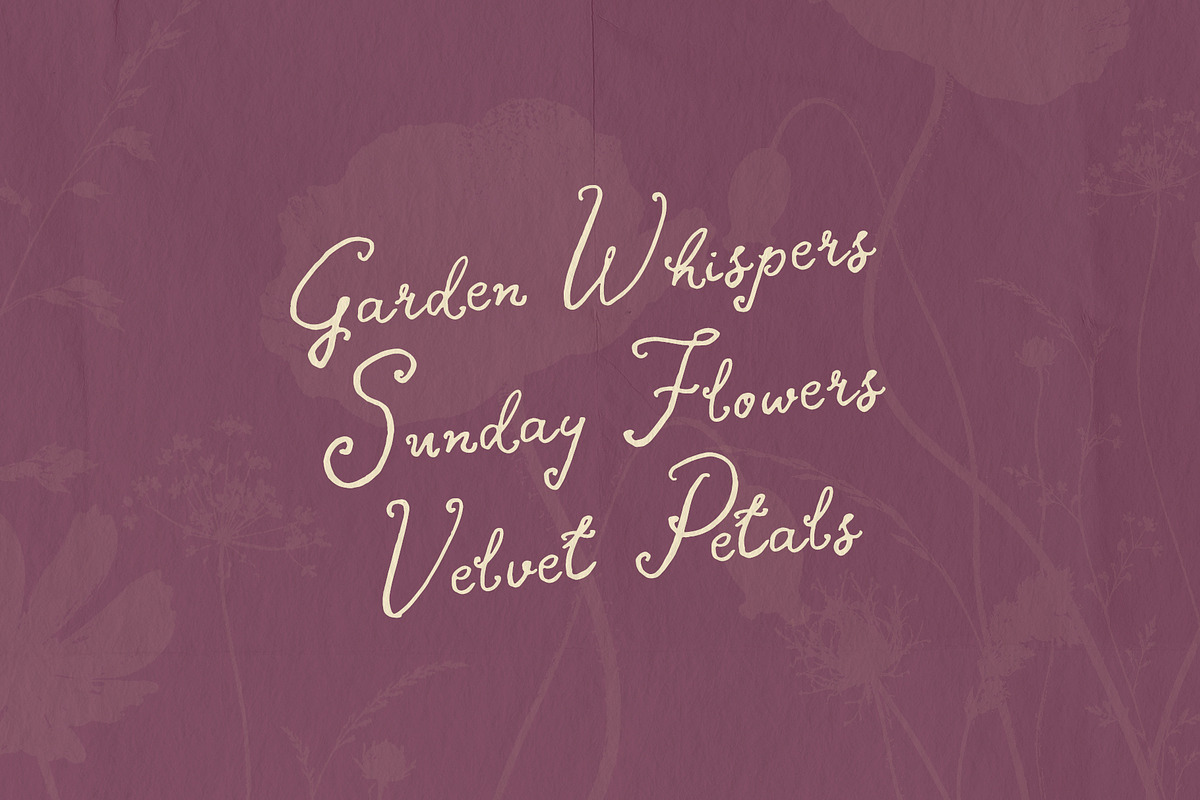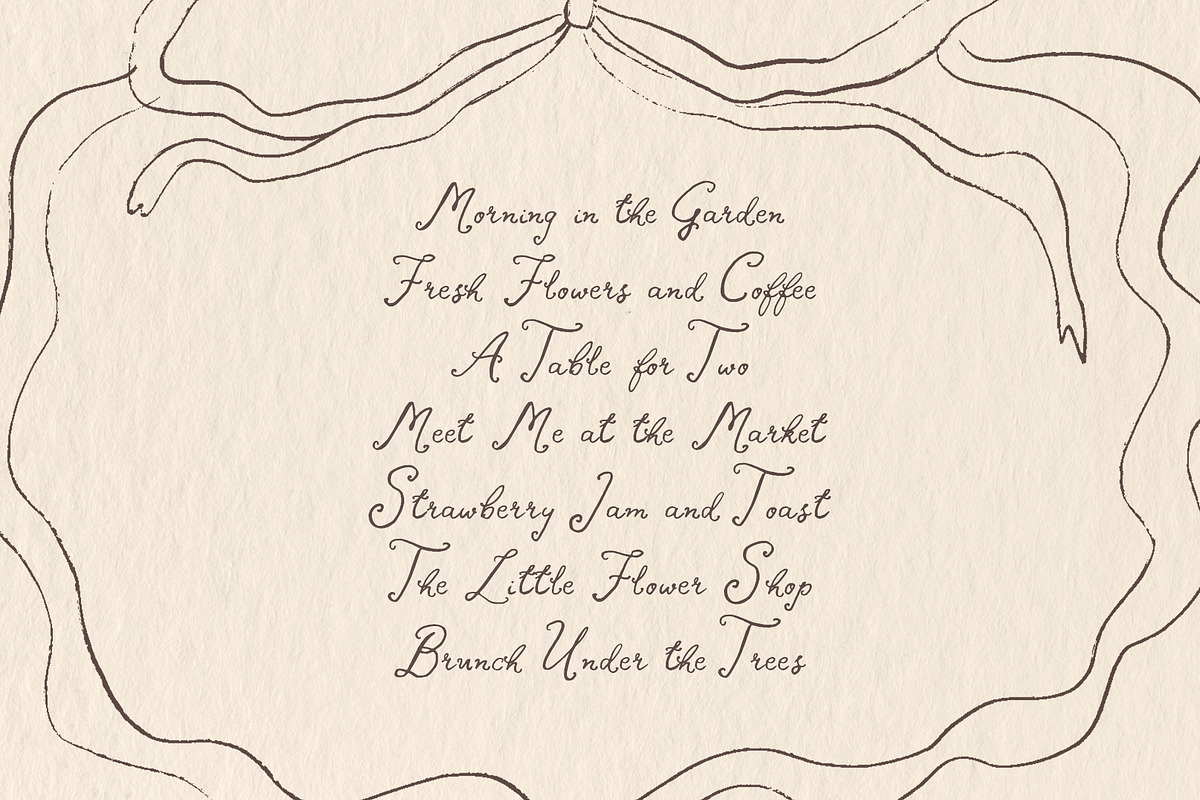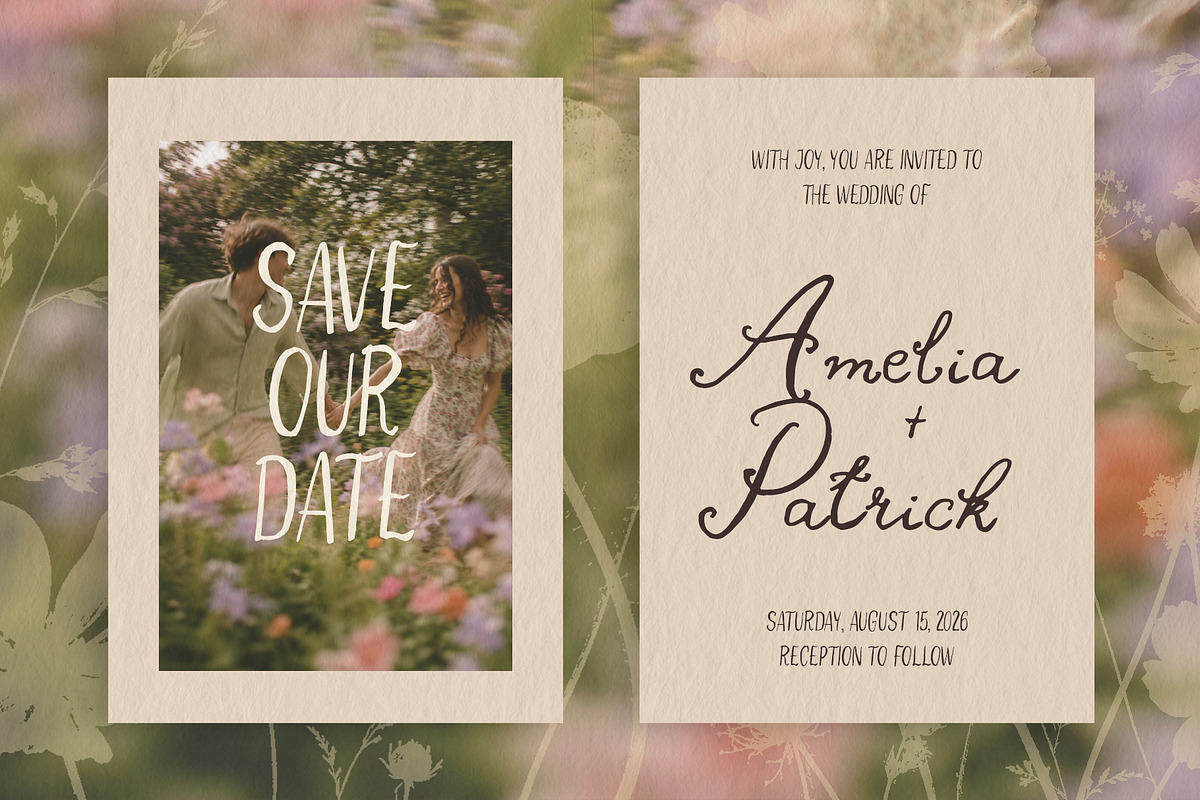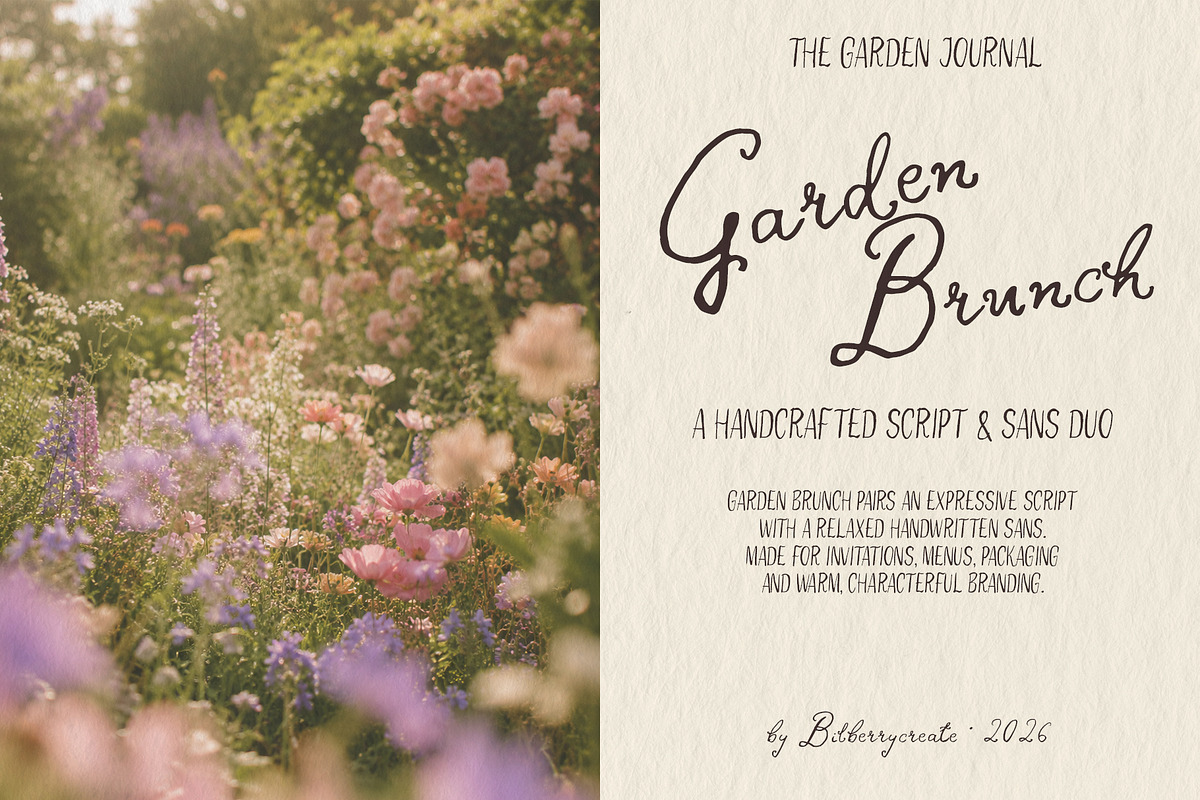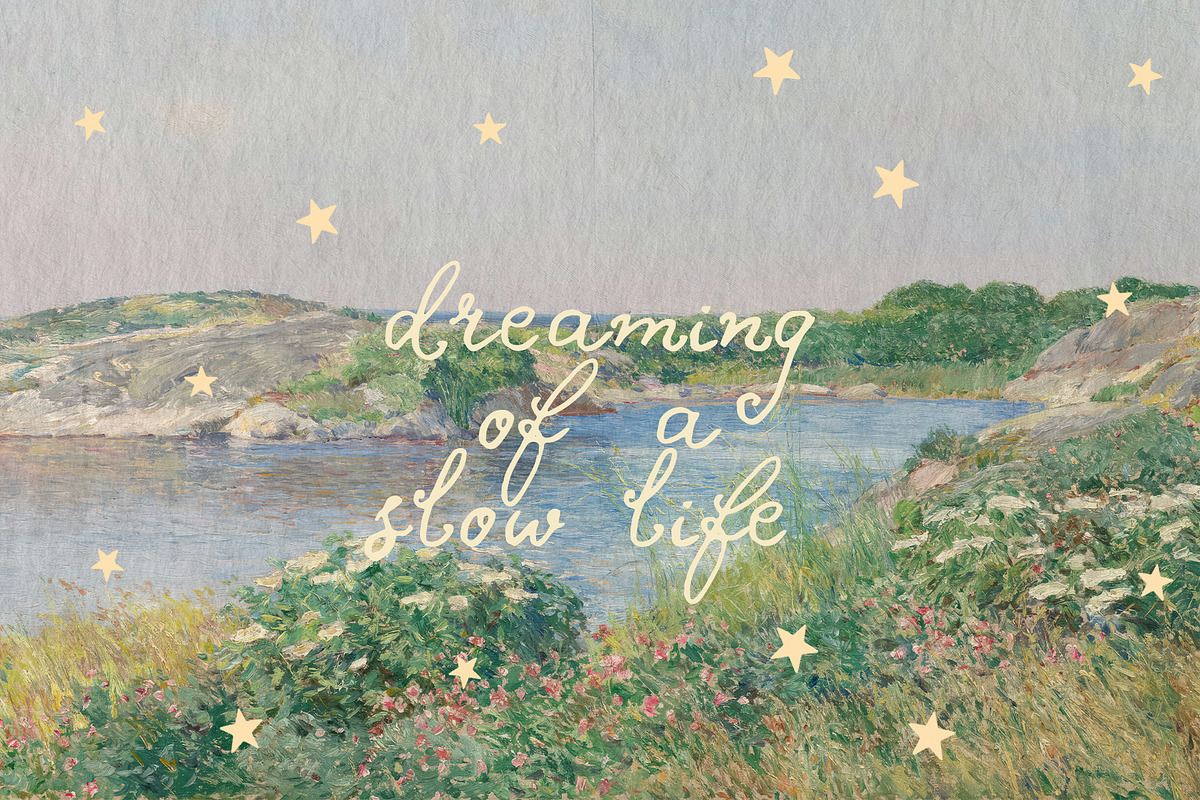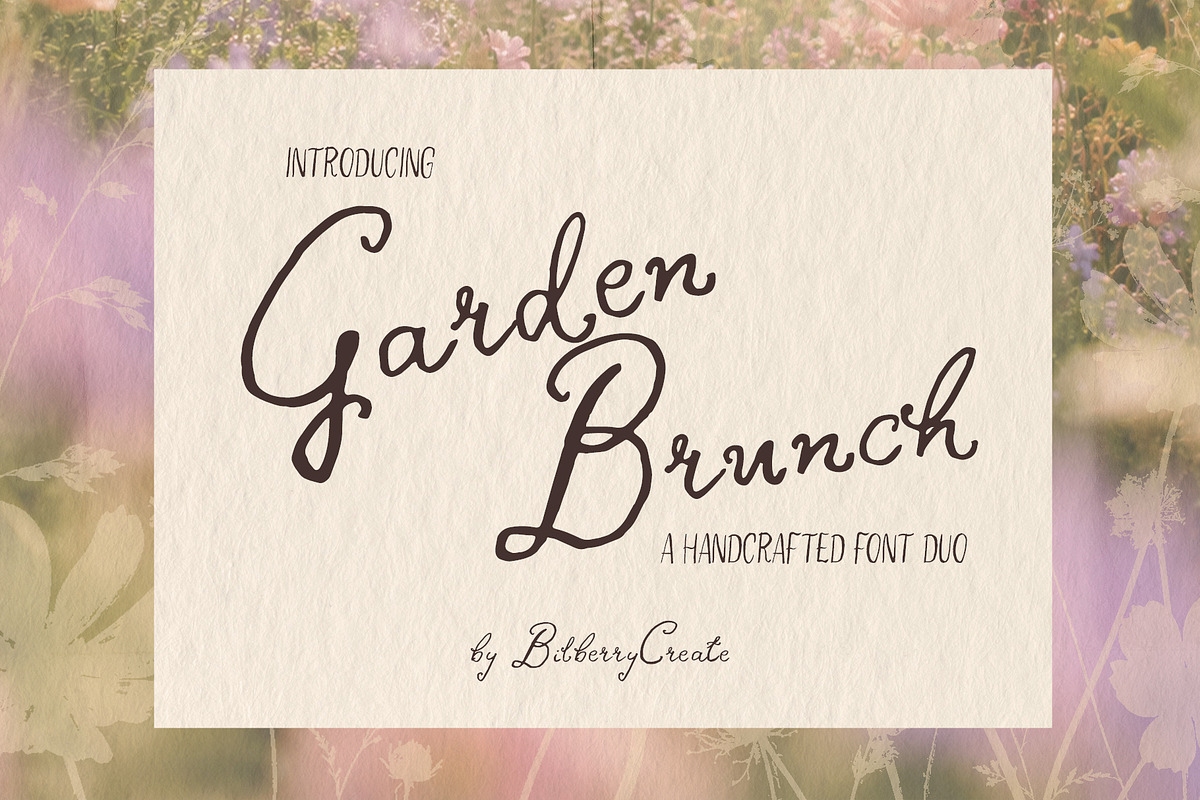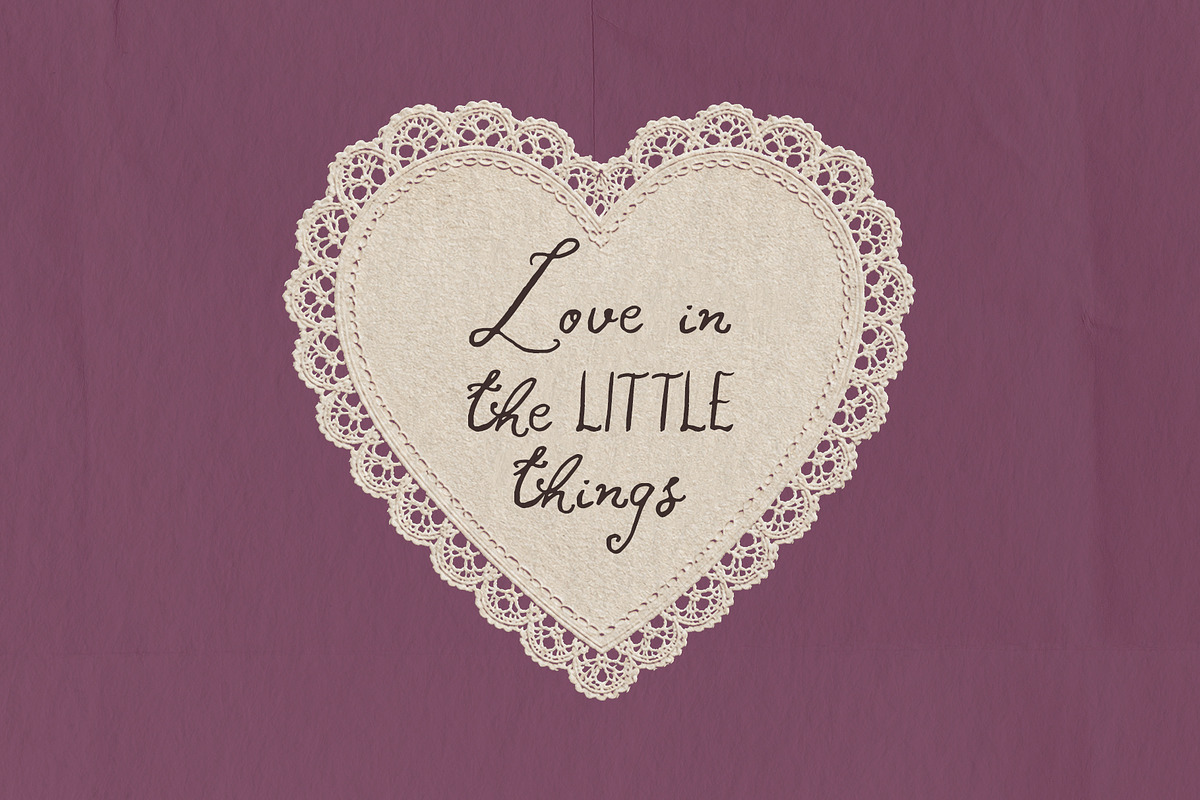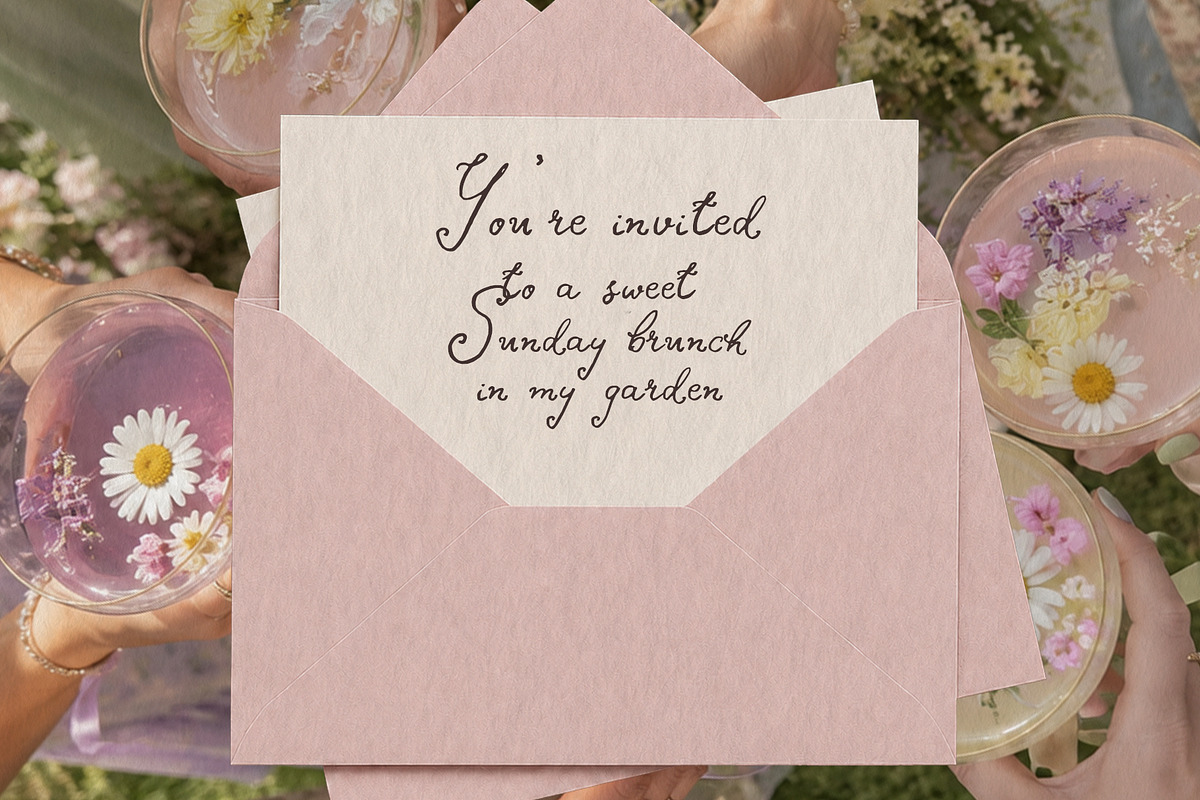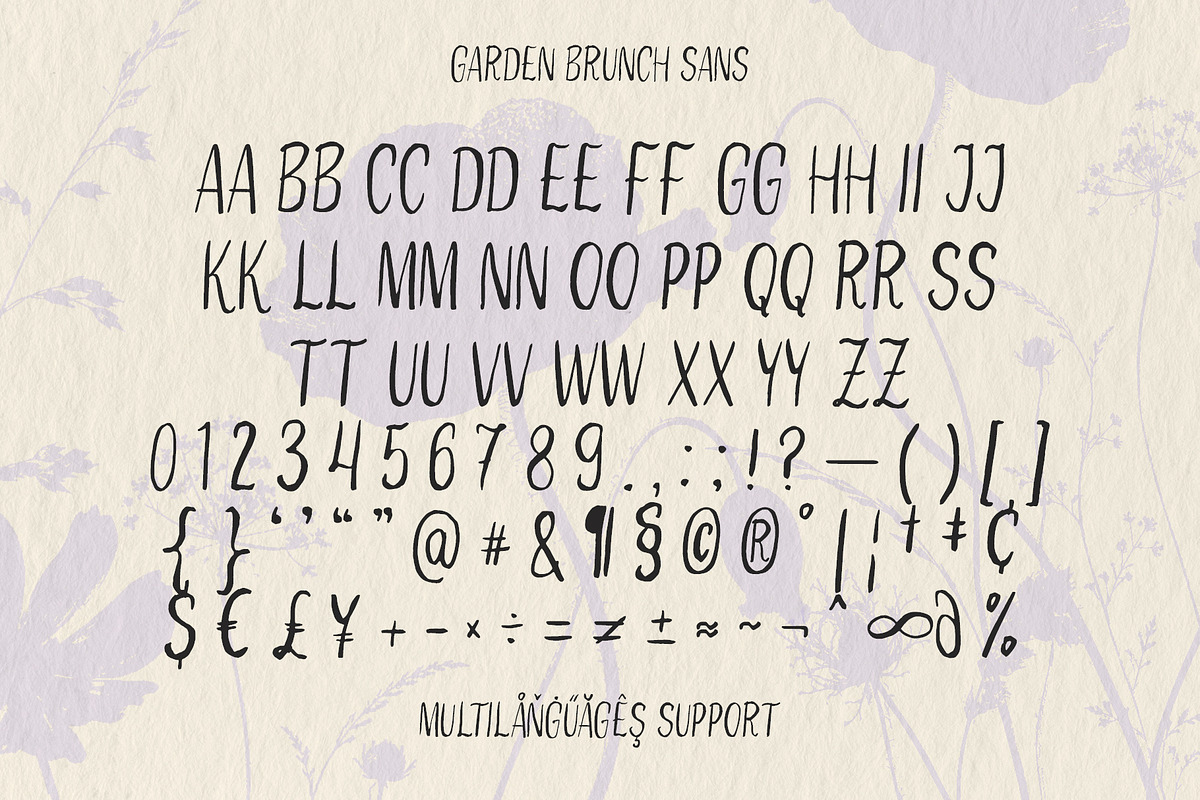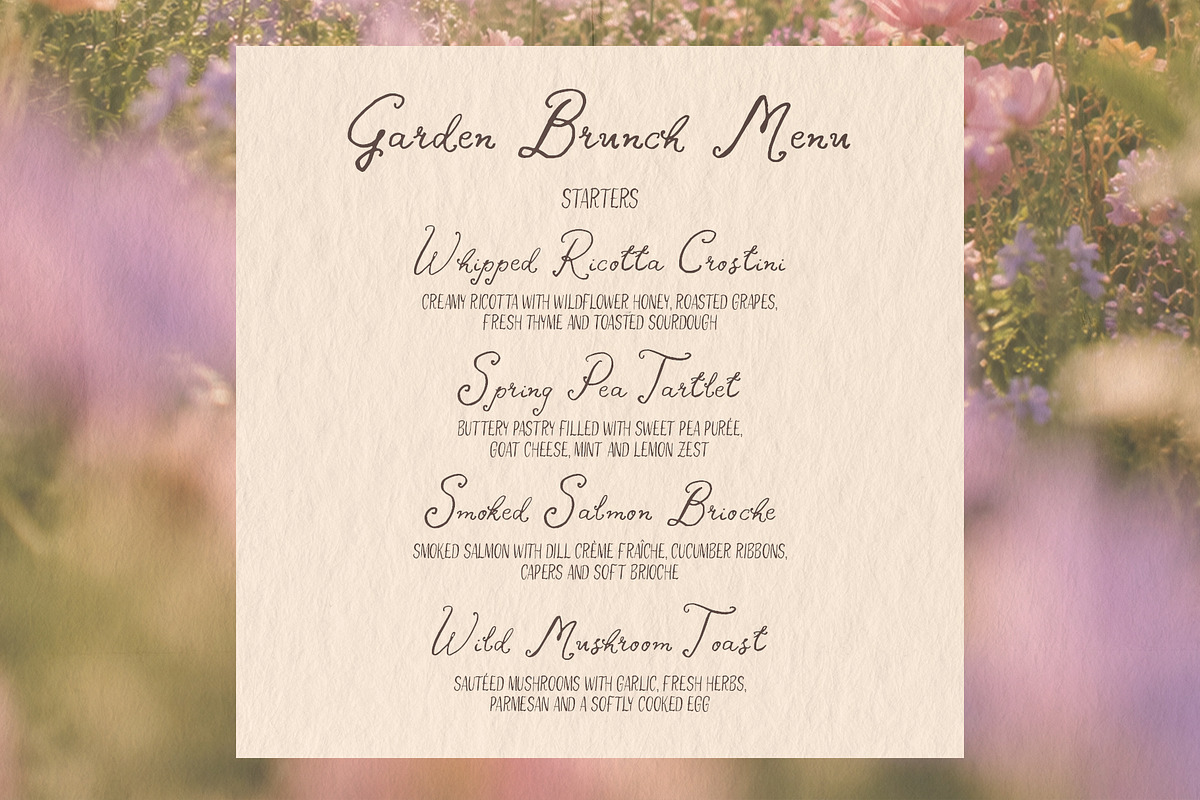
Garden Brunch Script & Sans Duo
Garden Brunch is a charming handwritten font duo featuring an expressive script and a relaxed hand-drawn sans serif.
The script brings a soft, personal feel with elegant curves and playful letterforms, while the sans adds a simple, casual contrast. Both fonts were designed to work naturally together, making it easy to create warm and characterful typography.
Garden Brunch is perfect for invitations, menus, packaging, logos, social media graphics, editorial layouts, greeting cards, wedding stationery and lifestyle branding.
The font duo includes uppercase and lowercase characters, numerals, punctuation, symbols and multilingual support.
Bring a little handmade warmth to your next project with Garden Brunch.
Garden Brunch Script Uppercase and lowercase letters, numerals, punctuation, symbols, currency signs and multilingual characters.
Garden Brunch Sans Uppercase letters, numerals, punctuation, symbols, currency signs and multilingual characters.
Wedding invitations, save-the-date cards, menus, greeting cards, logos, packaging, labels, editorial designs, social media posts, quotes, posters and feminine lifestyle branding.